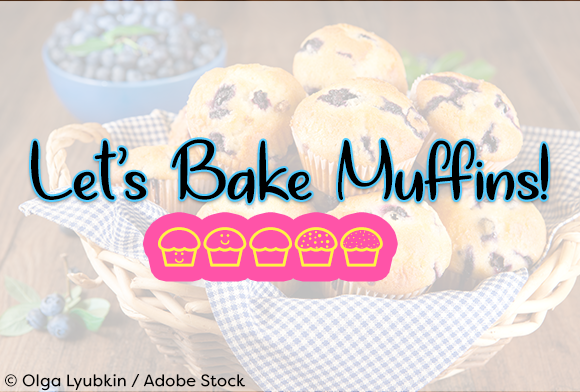
Let”s Bake Muffins
About Let”s Bake Muffins Font
Let’s Bake Muffins is a quirky, calligraphy handwriting font that is great for a variety of projects! This friendly handwritten font is suitable for relaxed and girly project types.